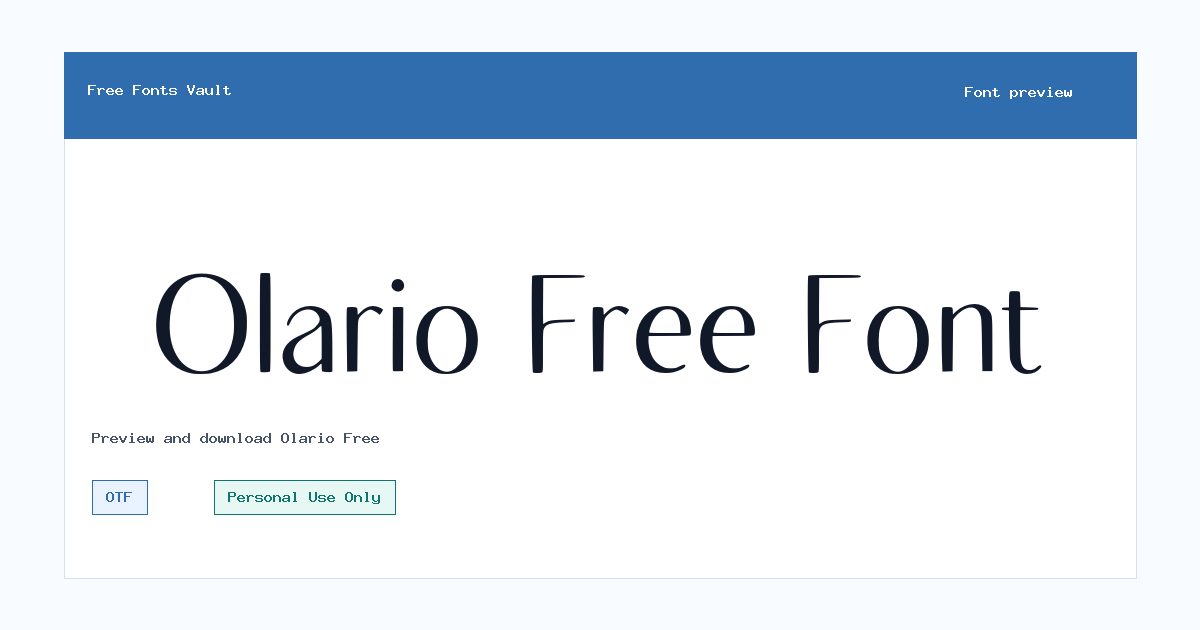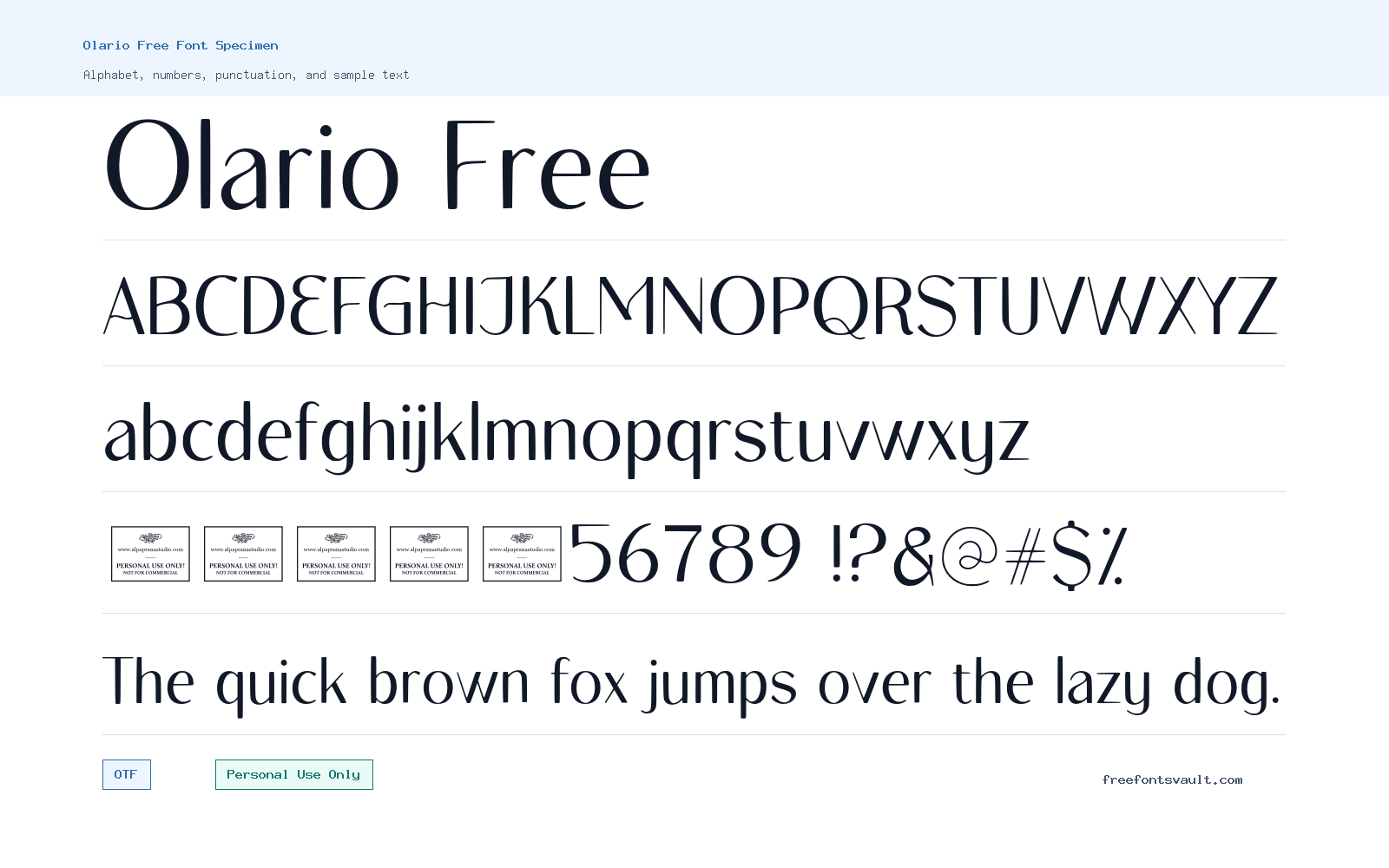
Olario Free
Olario Free font.
Olario Free is a clean regular-style font from Alpaprana Studio, offered as an OTF file for personal-use projects. It is best approached as a display and layout-testing font: try it in the preview tool, check how its spacing works with your text, and confirm the license before using it beyond personal work.
About Olario Free
Olario Free has a straightforward sans serif direction, with a regular weight that makes it easy to test across many kinds of short text. Because only one regular variant is included, it is most useful when you need a simple single-style type choice rather than a full family with bold, italic, or extended weights. Use the preview box to judge the details that matter for your project: uppercase rhythm, number spacing, punctuation, and how the font handles words with narrow and wide letters.
For visitors building a mockup, poster draft, social graphic, personal logo concept, or website header sample, Olario Free can help you explore a clean typographic look without needing a complex font family. Keep longer reading text modest until you have tested it at smaller sizes, since single-style display fonts can feel different in body copy than they do in headings. It will usually pair best with a quieter text font that does not compete for attention, especially if Olario Free is used for names, titles, or short labels.
- Sans serif style suited to short text, titles, and layout previews
- Personal poster drafts, quote graphics, and social media layouts
- Logo concepts, headings, labels, and clean title treatments
What is Olario Free best used for?
It is a practical choice for testing clean headings, logo drafts, social graphics, posters, labels, and other short-text designs. Preview it before using it in small body text.